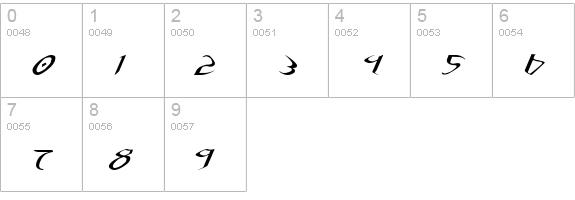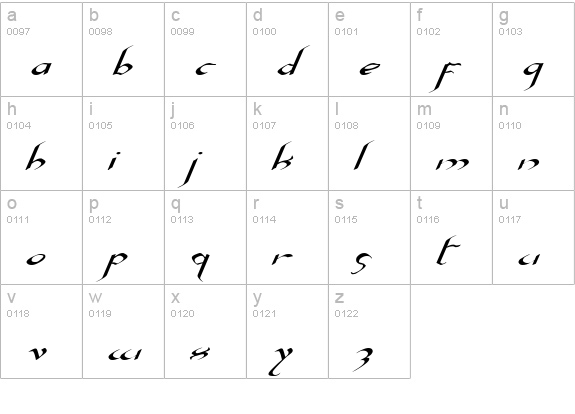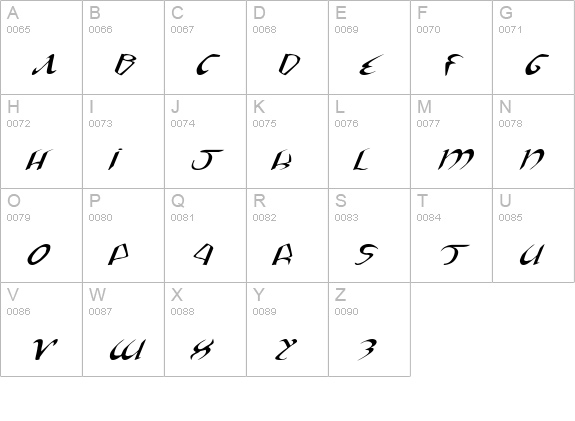
Xaphan II Expanded Italic is a distinctive, extended-width, italic variant in the Xaphan typeface family \xE2\x80\x94 well suited to design and typography projects.
Introducing Xaphan II Expanded Italic font, a sleek and modern typeface designed to make your designs stand out. With its elegant and sophisticated appearance, Xaphan II Expanded Italic is perfect for adding a touch of style to any project. The italicized version of this font features elongated and slanted letterforms, creating a sense of movement and dynamism. What sets Xaphan II Expanded Italic apart is not only its striking aesthetics but also the fact that it is available for free download at FontsMarket.com. This means that you can easily access this high-quality font without any cost, making it a valuable addition to your font collection. Whether you're working on branding, editorial design, or any other creative project, Xaphan II Expanded Italic is sure to elevate your typography game. Download it today and add a touch of sophistication to your designs.